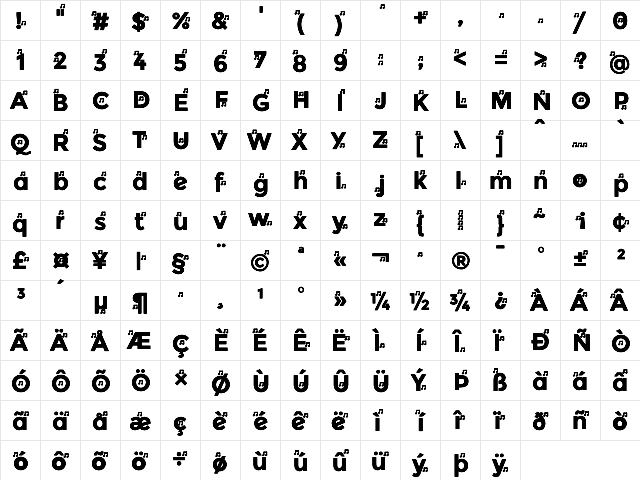
YentNotes Cacophony Bold
| Foundry | Julieta Ulanovsky |
| Designer | Julieta Ulanovsky |
Design Context for YentNotes Cacophony Typeface
YentNotes Cacophony takes a measured approach to typography — its balanced proportions and neutral character make it a reliable workhorse for both digital and print work. The heavy weight commands attention and anchors typographic hierarchies.